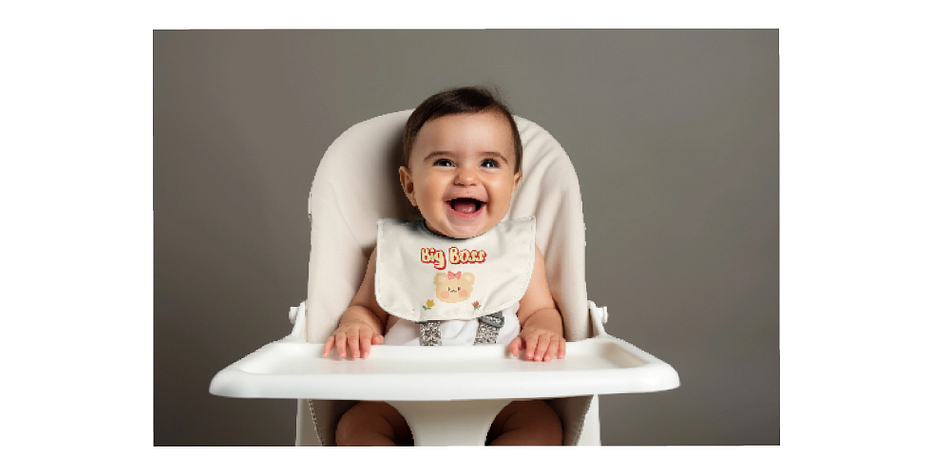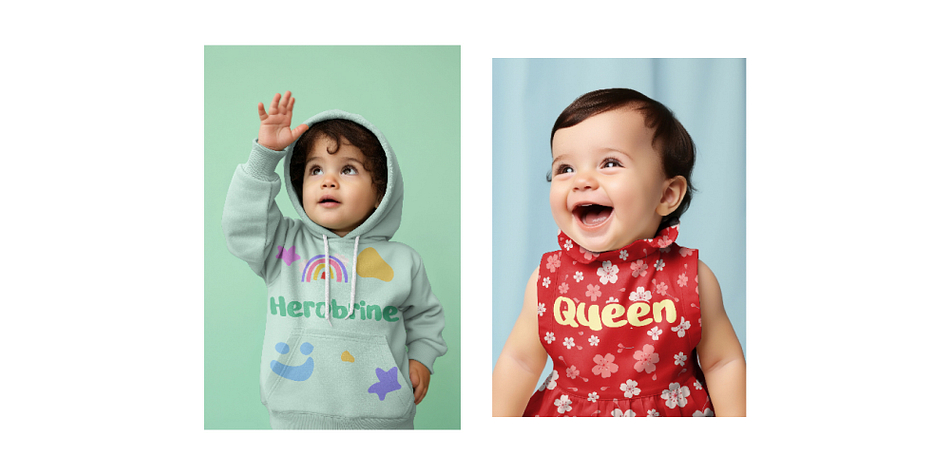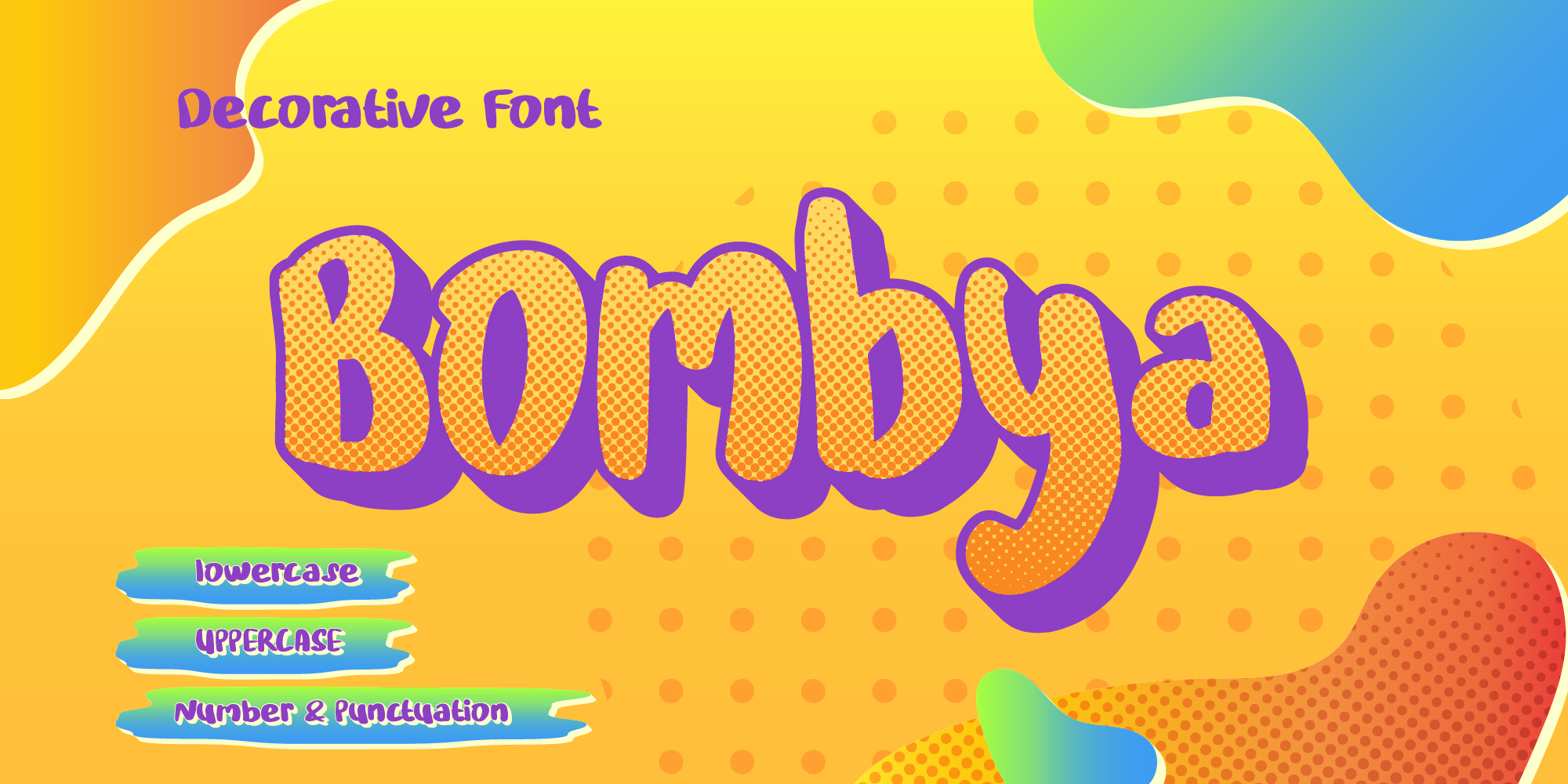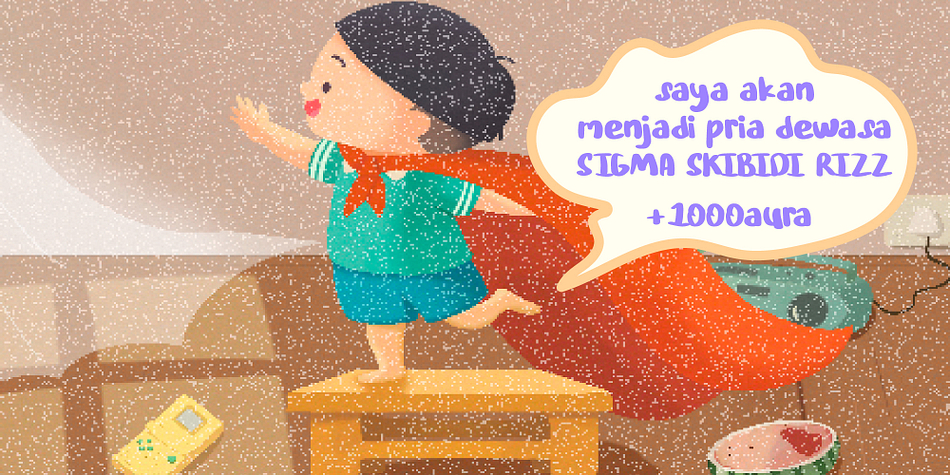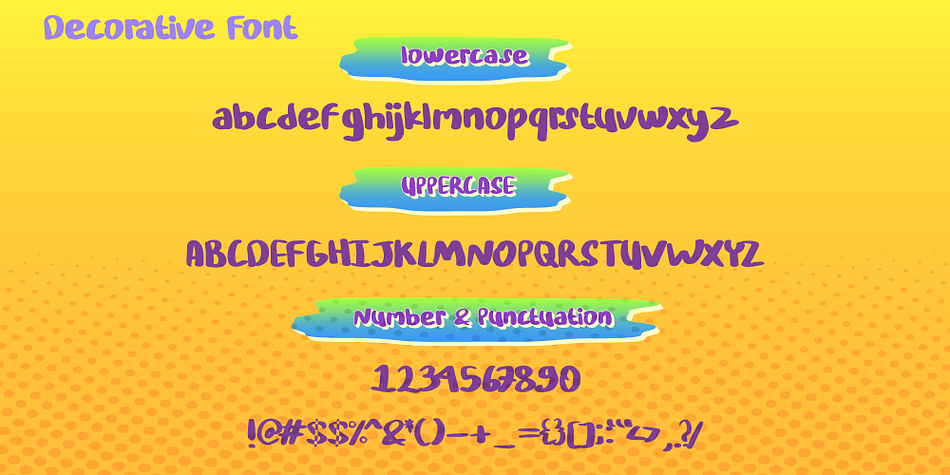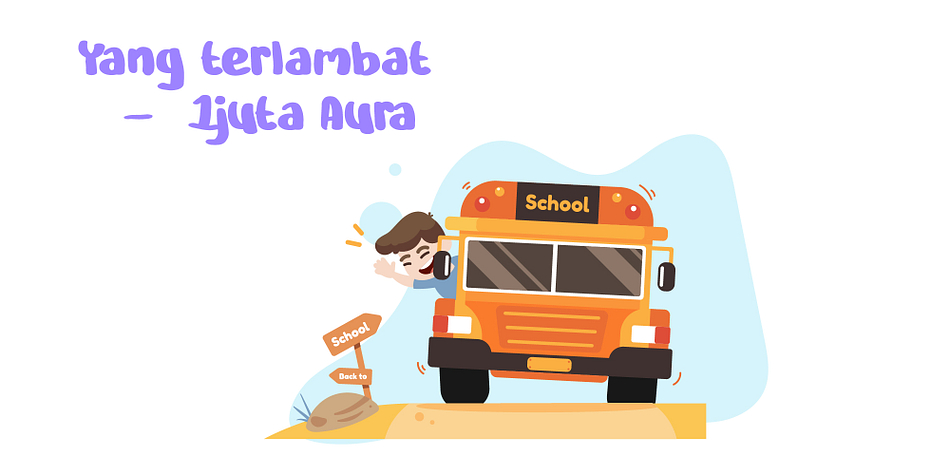
Bombya
Bombya is a brush display font family published by Zaidan Ramadan Ilyas.
Introducing “BOMBYA,” the playful and vibrant font designed specifically for children! With its bold, bubble-like letters and fun dotted texture, this font is perfect for all types of educational materials, children’s products, or any creative project that needs a youthful touch. It features both lowercase and uppercase characters, as well as numbers and punctuation, making it incredibly versatile. The bright, cheerful colors and rounded shapes make it easy to read while capturing the attention of young readers. With “BOMBYA,” your message will not only be eye-catching but also memorable, bringing a sense of joy and excitement to your audience.